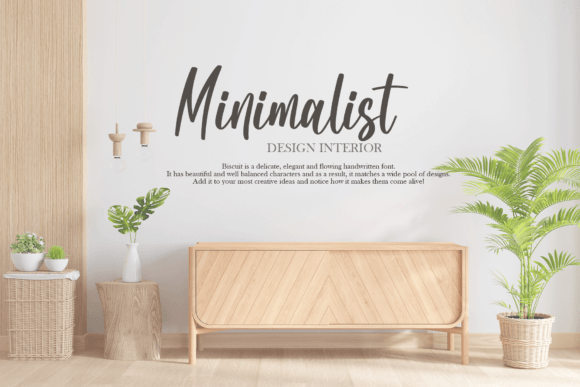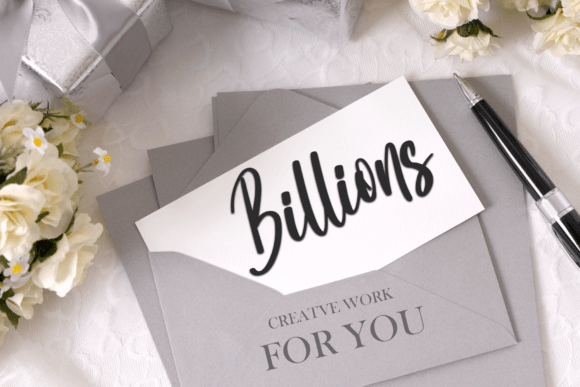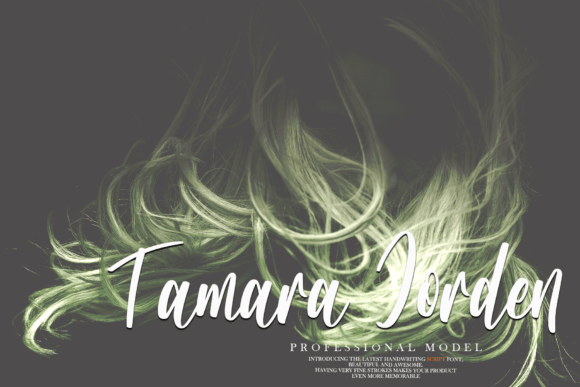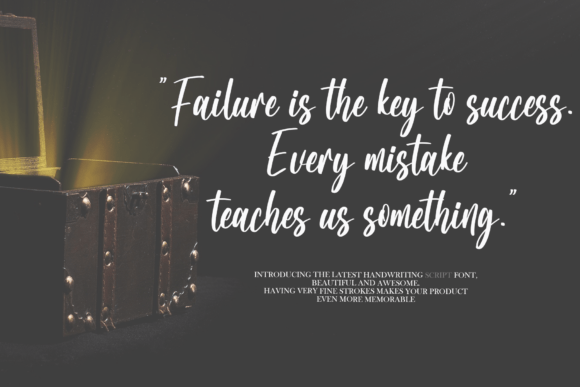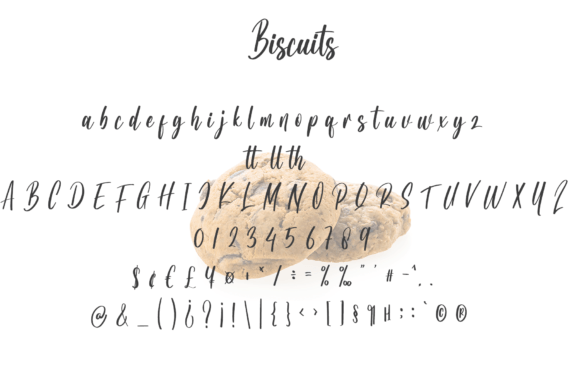
About Biscuits Font
Biscuits is a cool, simple, and playful display font that adds a touch of fun and creativity to your designs. Its versatility makes it suitable for a wide range of creative projects, allowing you to elevate your designs to new heights. Whether you’re working on branding, posters, packaging, social media posts, or any other creative endeavor, Biscuits brings a playful and lively vibe to your work.
One of the key features of Biscuits is its adaptability. Its simple and playful design allows it to seamlessly integrate into various design styles and themes. Whether you’re aiming for a modern, retro, or whimsical look, Biscuits complements your creative ideas, enhancing their visual impact and making them stand out.
The font’s versatility allows you to experiment with different design elements and layouts, giving you the freedom to explore creative possibilities. By adding Biscuits to your favorite creative ideas, you’ll notice how it brings them to life with its playful energy and charm. Its cool and lively demeanor injects a sense of excitement and freshness into your designs, capturing the attention of your audience.
Incorporating Biscuits into your projects not only adds a playful touch but also communicates a sense of creativity and imagination. Its simplicity and versatility make it a popular choice among designers who want to infuse their work with a touch of fun and spontaneity. By using Biscuits, you’re selecting a font that enhances your creativity and transforms your designs into vibrant and engaging visual experiences.
So, whether you’re designing eye-catching posters, playful packaging, captivating social media content, or any other creative project, let Biscuits be your font of choice. Its cool, simple, and playful nature enlivens your designs, making them more dynamic and exciting. Embrace the creativity of Biscuits and watch your projects come to life with a touch of playful energy and vibrant charm.